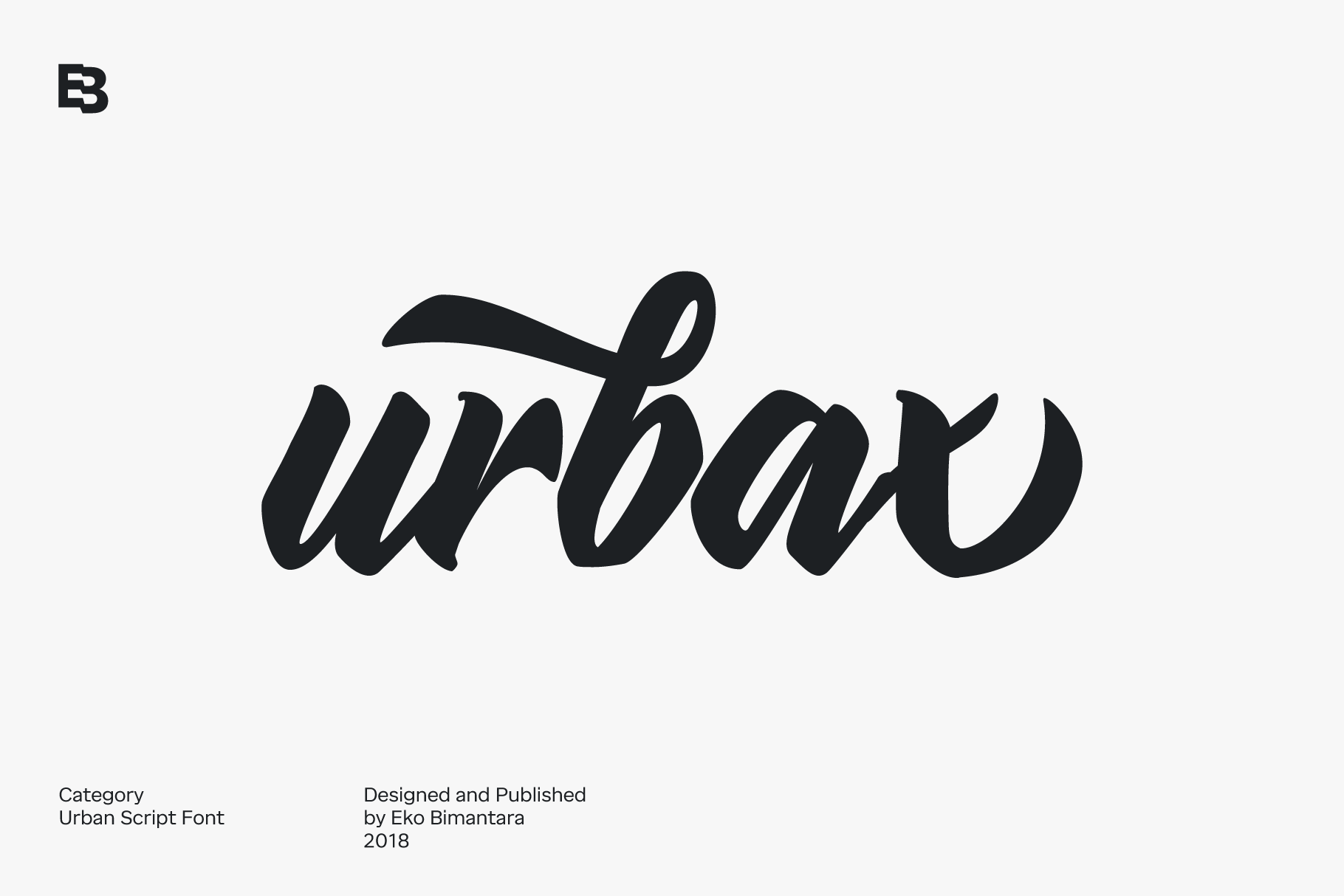
Urbax Script Font
Urbax Bold expressive script for urban people and urban project. Fit for Logos, Brand, Titling, Shirt, Hoodie, Products, Signage, Prints and Various Creative Projects. Contain 5 stylistic sets with lot of alternates that can be access with opentype savvy apps. Contain basic latin multilanguage support.